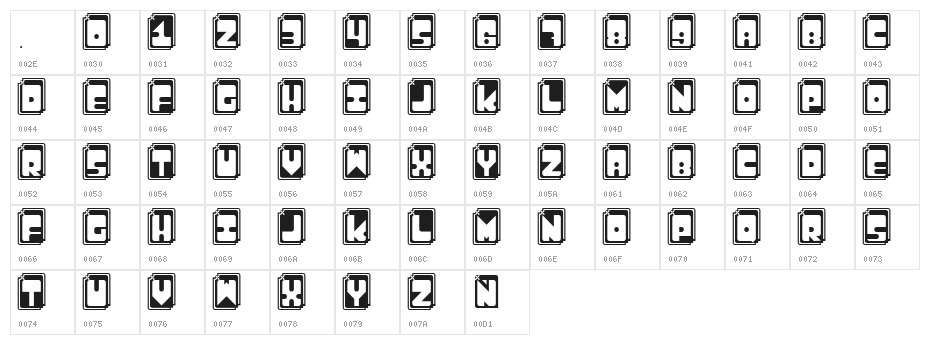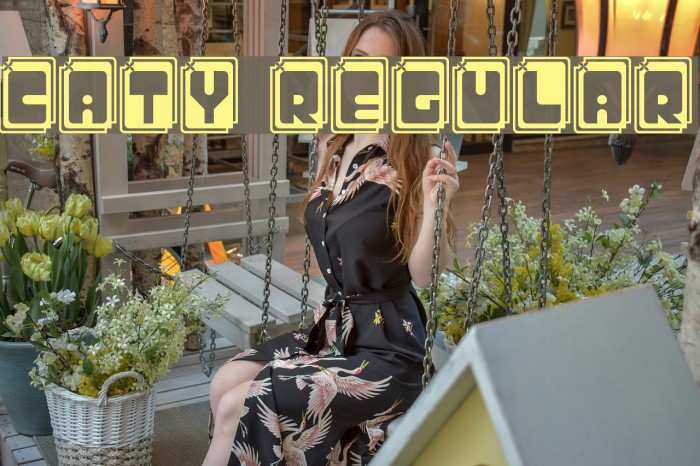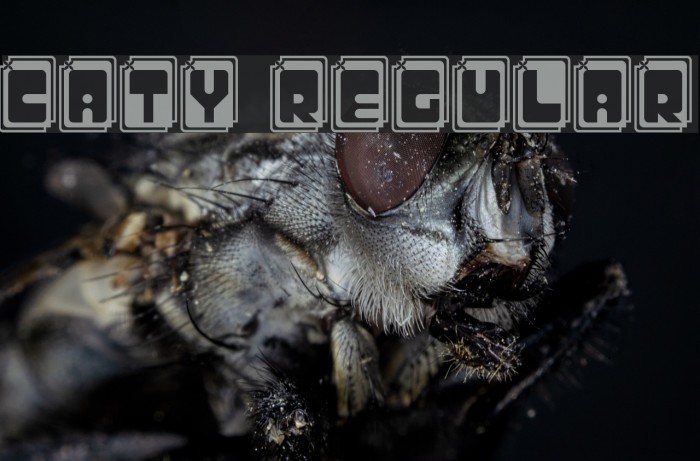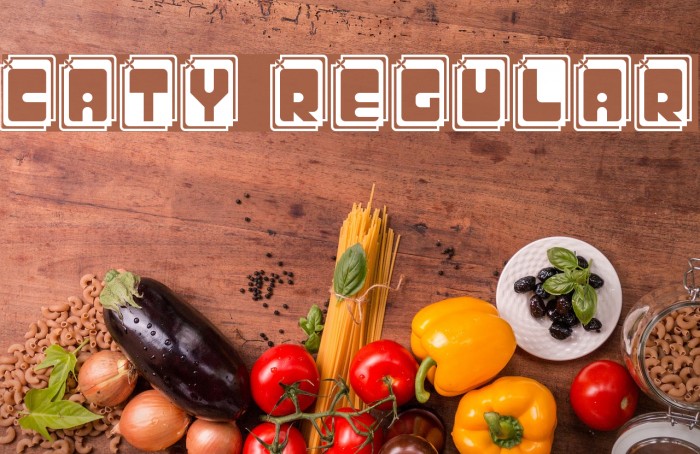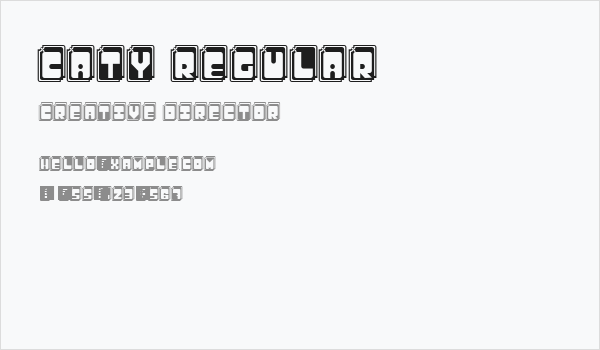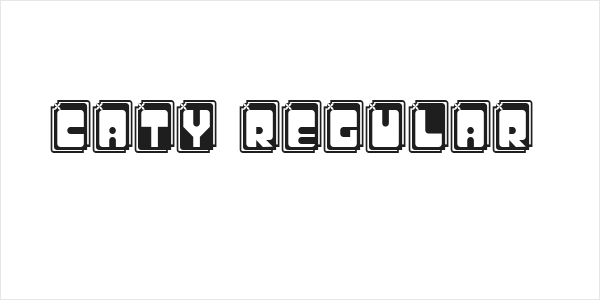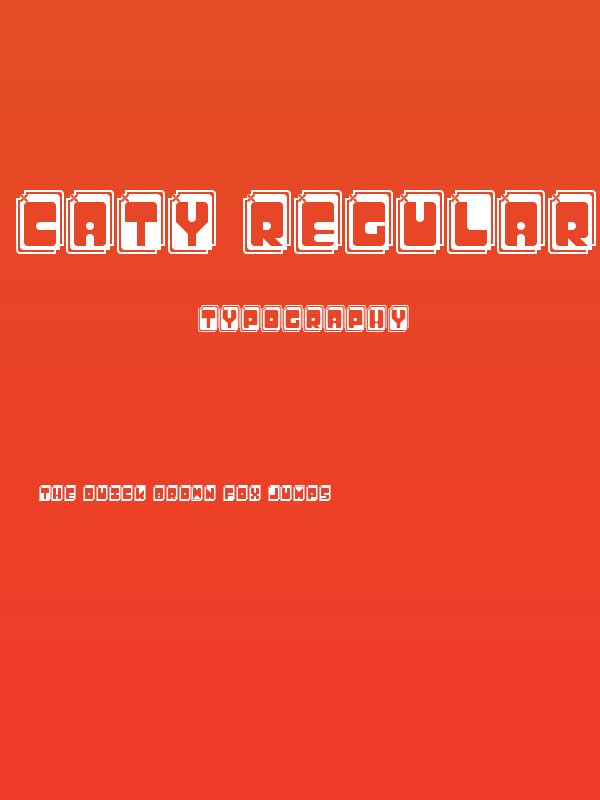
CATY Regular Font
CATY Regular Description
This font features a bold, geometric style with a distinct three-dimensional effect. Each character is enclosed in a rectangular frame, adding a unique border that enhances its visual impact. The letters and numbers are blocky and angular, with sharp edges and a modern aesthetic. The design incorporates a shadow effect, giving the impression of depth and dimension. This font is highly decorative, making it suitable for eye-catching headlines and titles. The overall style is playful yet structured, combining elements of modern design with a retro twist.